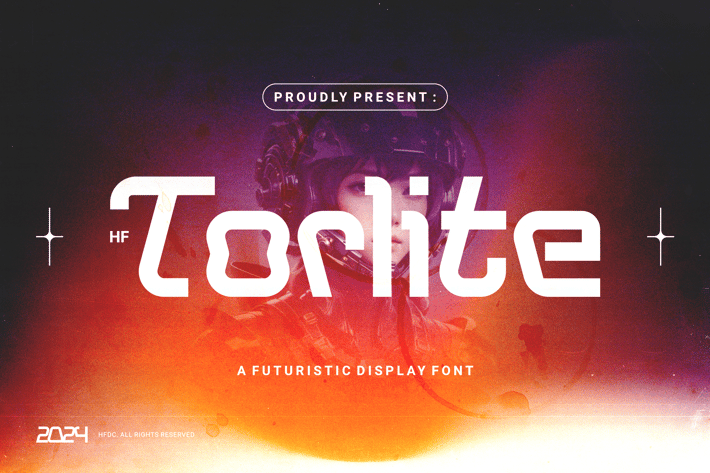
HF Torlite Futuristic Font
HF Torlite is a font that has a futuristic character in each character, has a dynamic and modern impression for a design.
The HF Torlite font is available alternately in uppercase and lowercase modes, and also ligature in lowercase mode, you can easily explore your creativity with this font.
This font is very suitable for applications as logos, headlines, film titles, books, posters, invitations, etc.
Uppercase & lowercase
Alternate & Ligatures